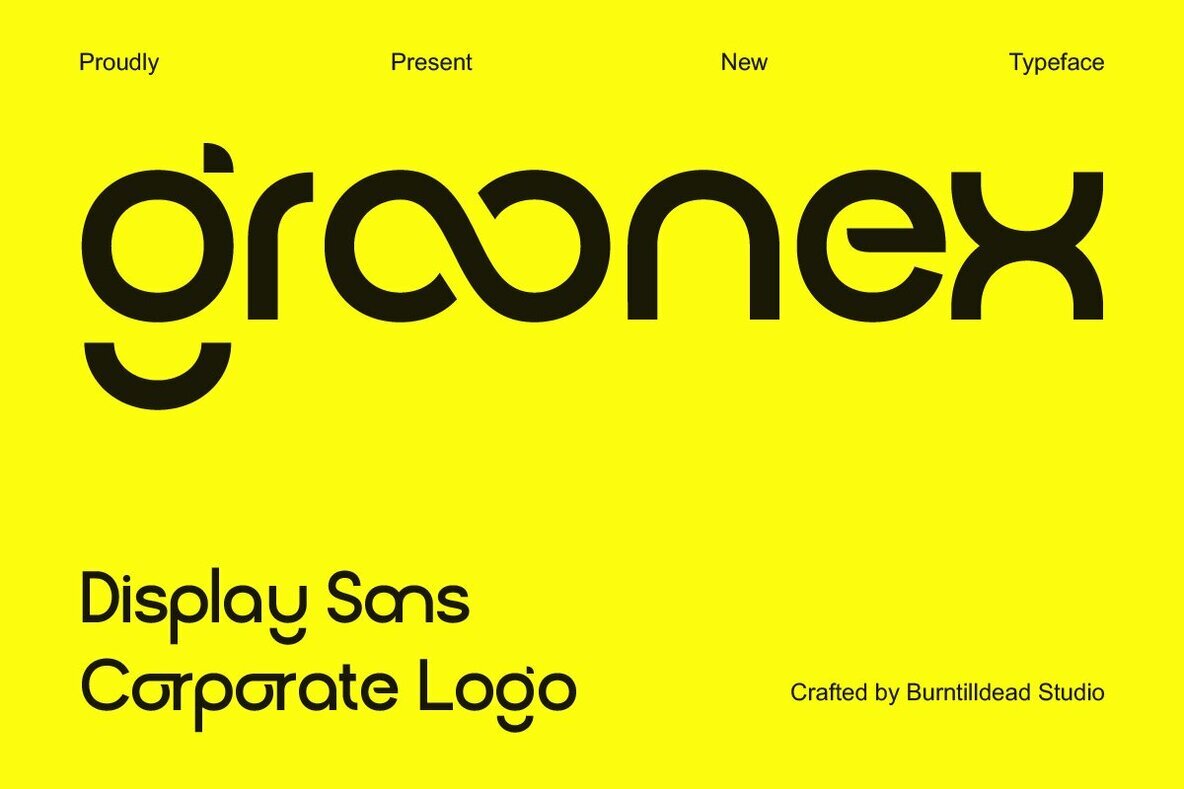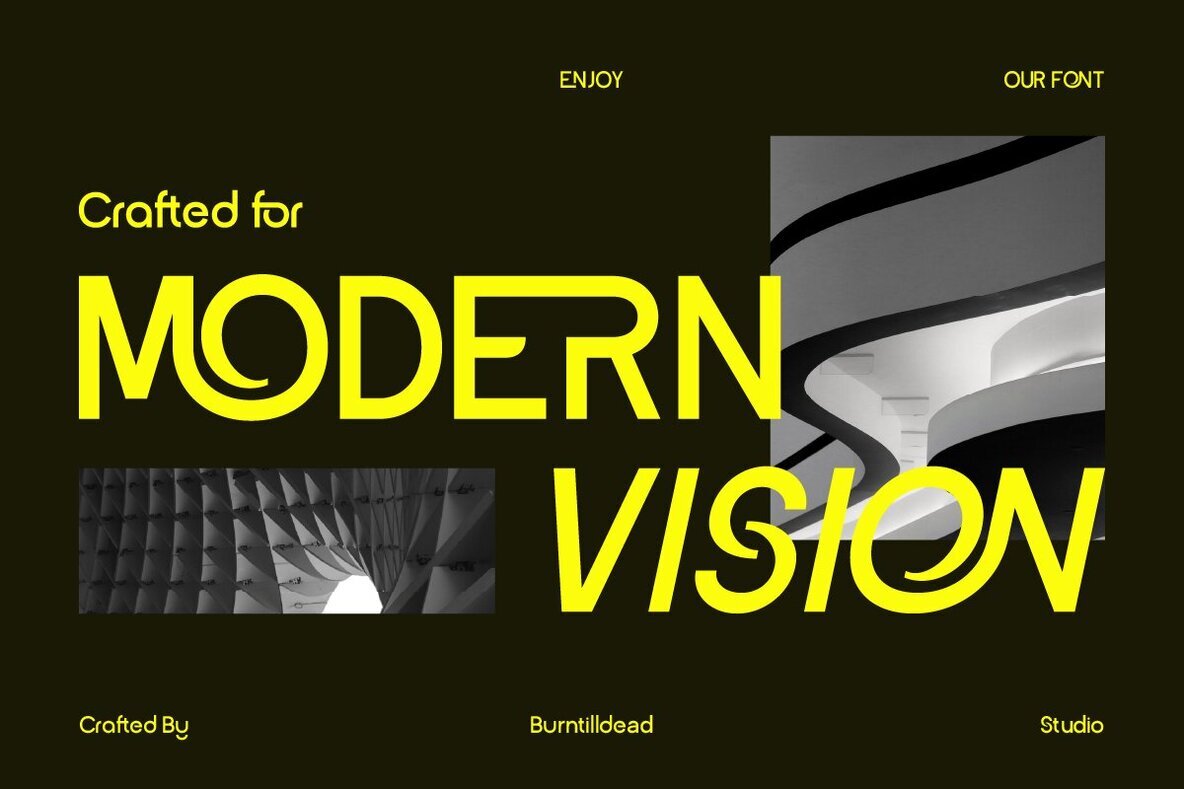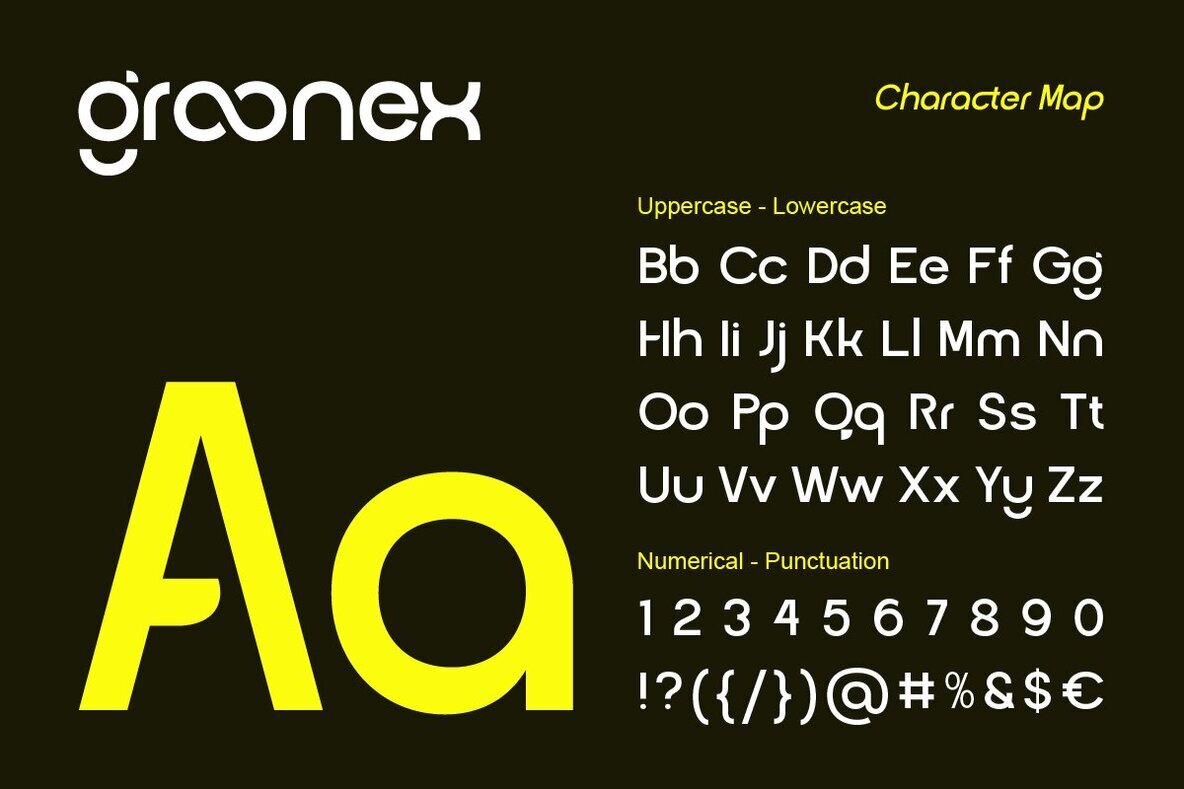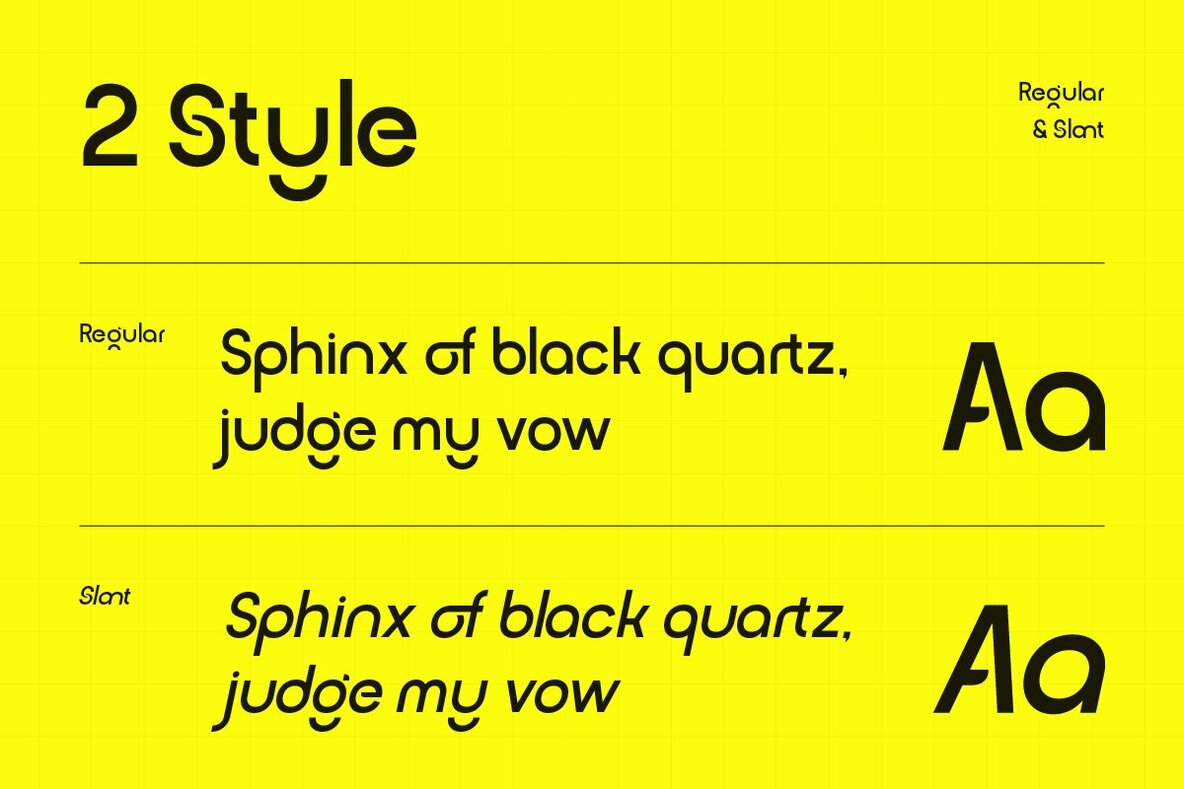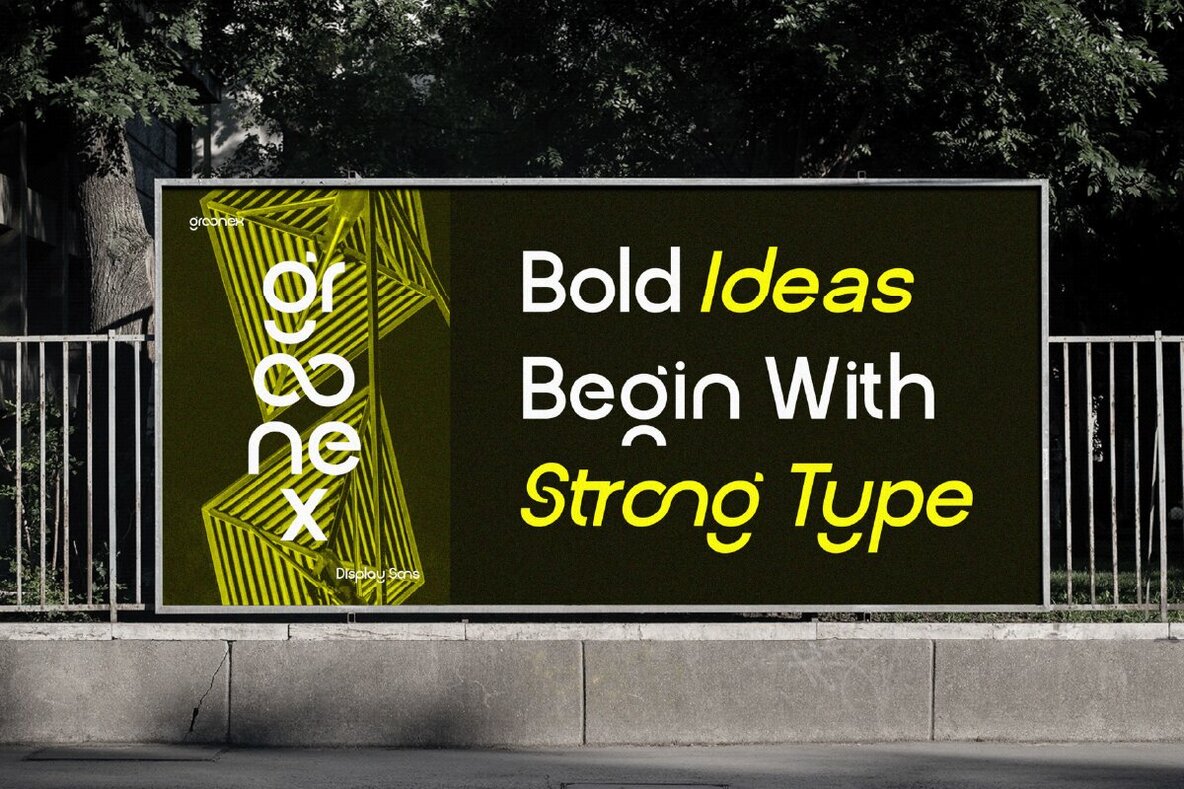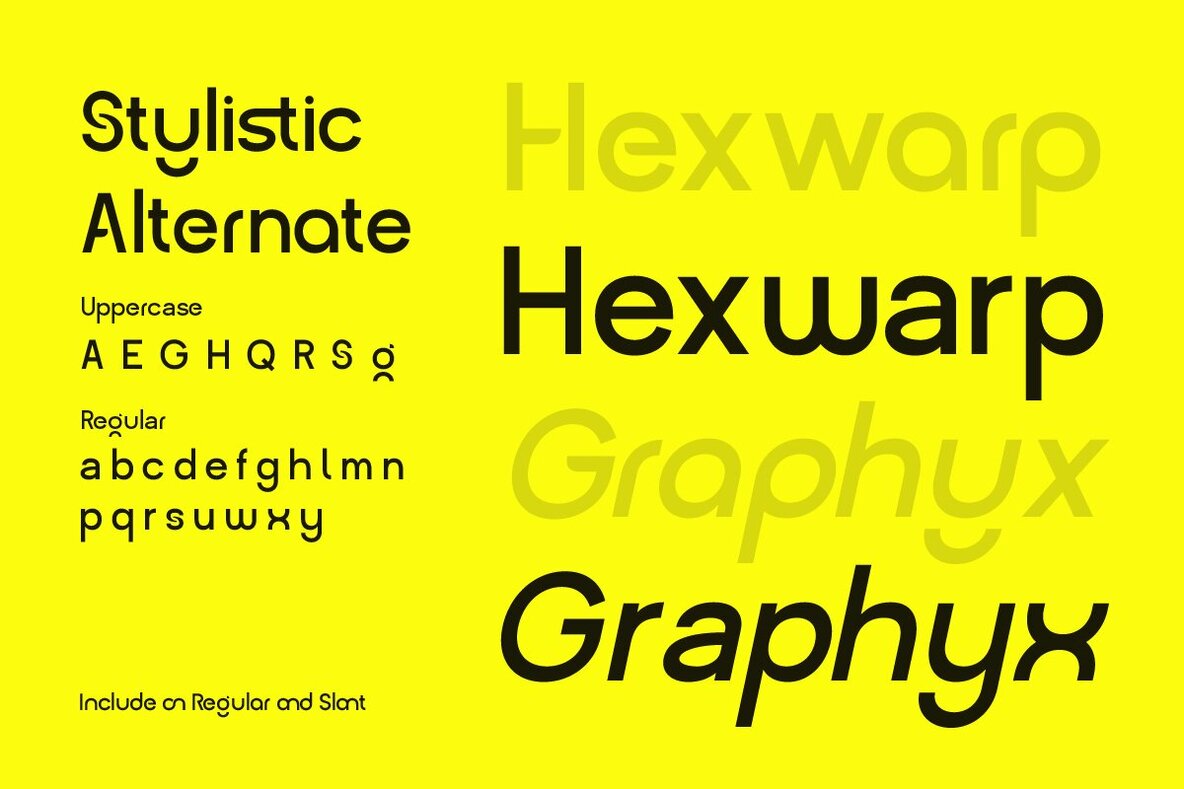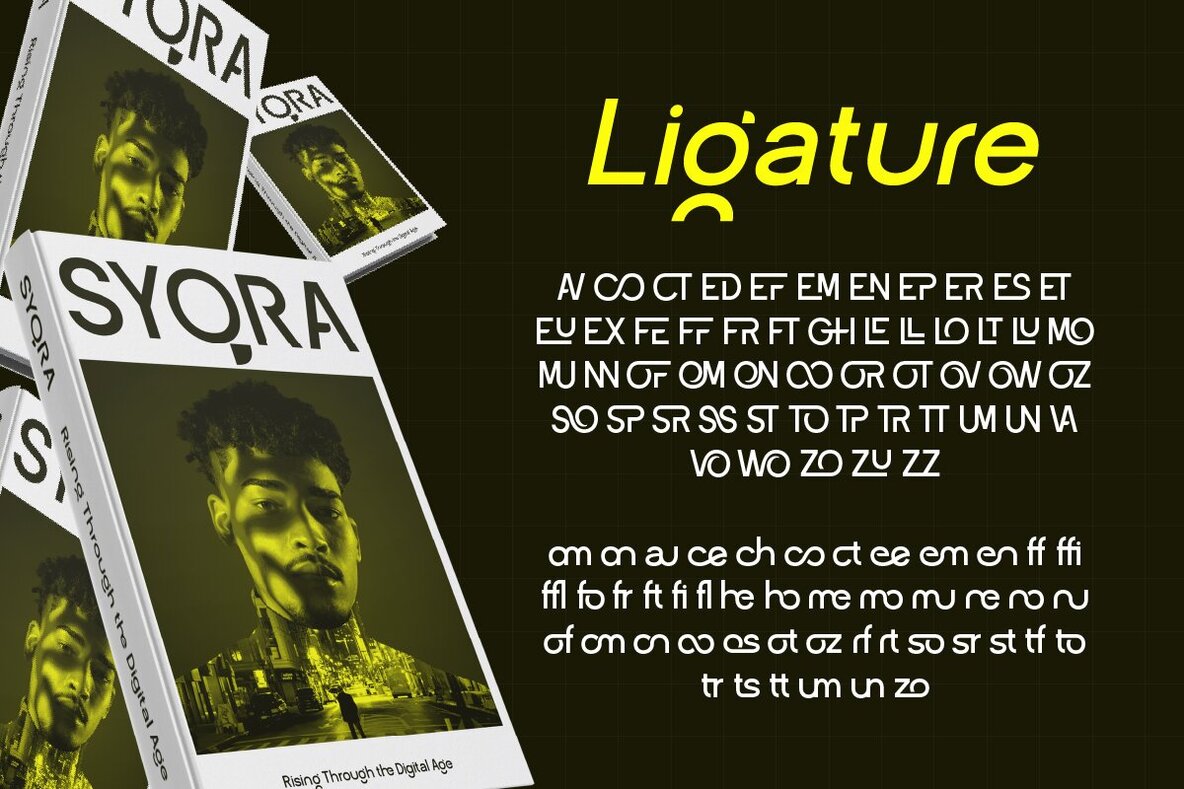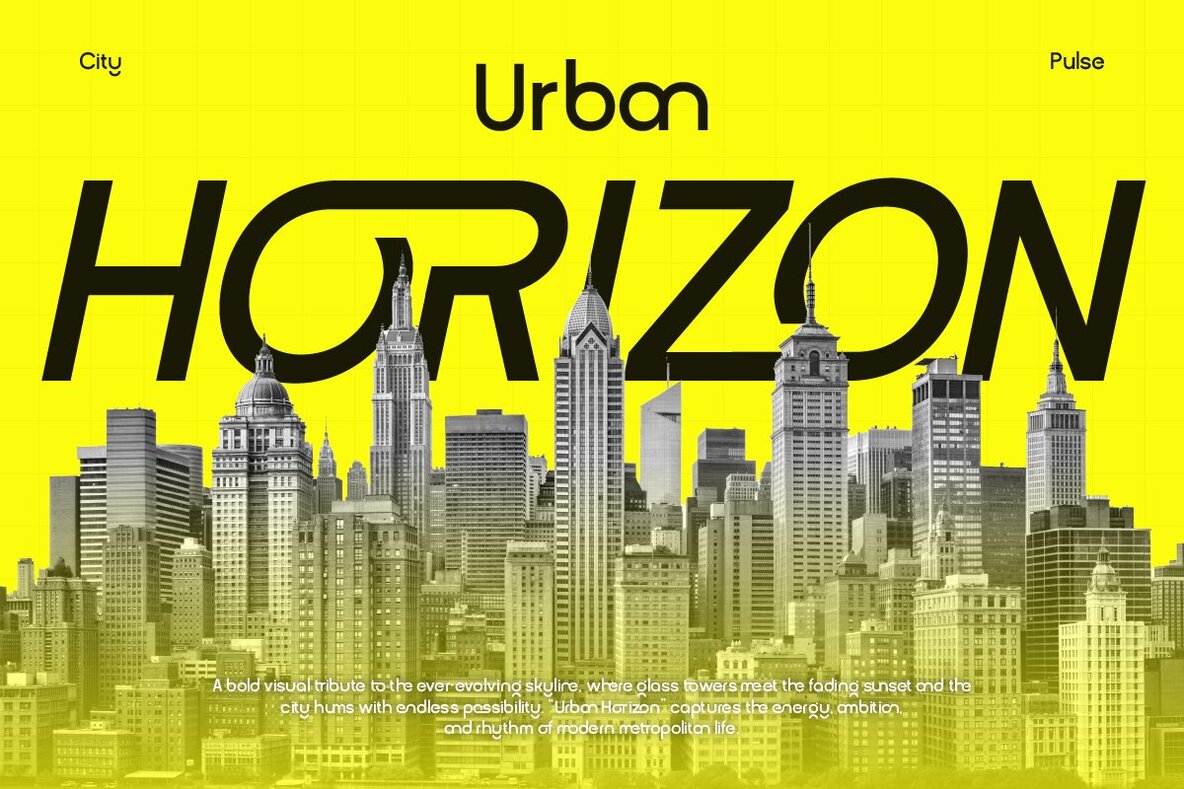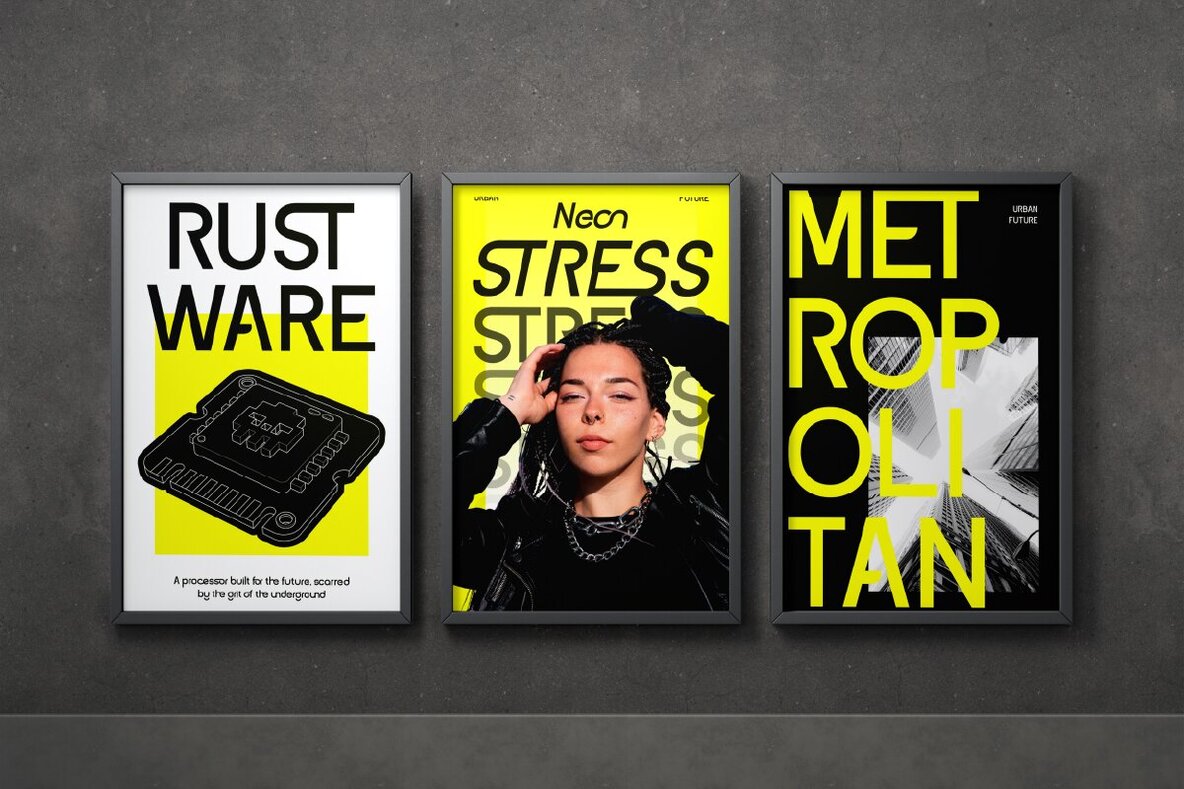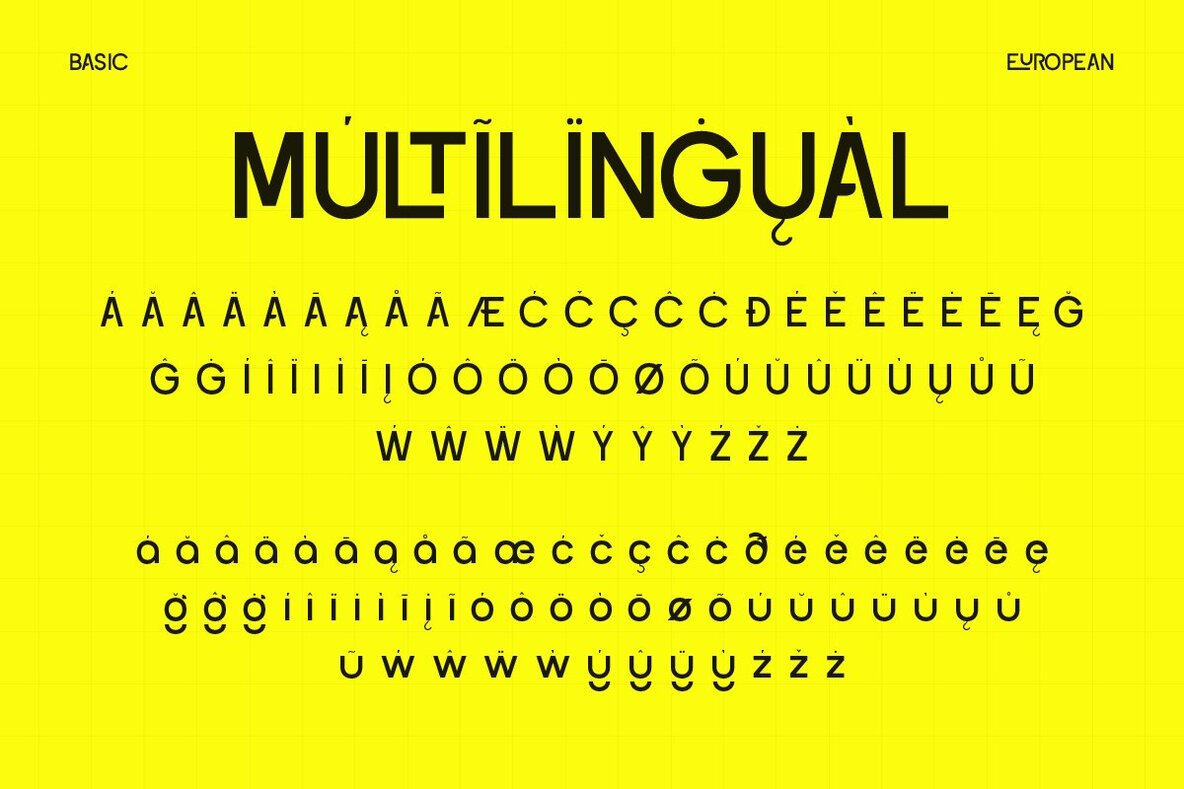
Groonex Font
Groonex is a contemporary display sans serif designed for standout branding and logo work. It delivers a clean and bold look, combining unique letterforms with a refined sense of style. Each character shows careful attention to detail, ensuring your projects gain a striking yet professional presence. With smooth curves and balanced proportions, Groonex offers adaptability for a range of brand identities. Available in Regular and Slant styles, Groonex is well-suited for sharp wordmarks, bold headlines, and corporate identities. Its structure maintains strong legibility, making it versatile for both creative and business-focused applications. Whether you're designing for startups, agencies, or eye-catching packaging, this typeface brings clarity and visual interest to every project.Groonex: Modern Display Sans for Impactful Branding